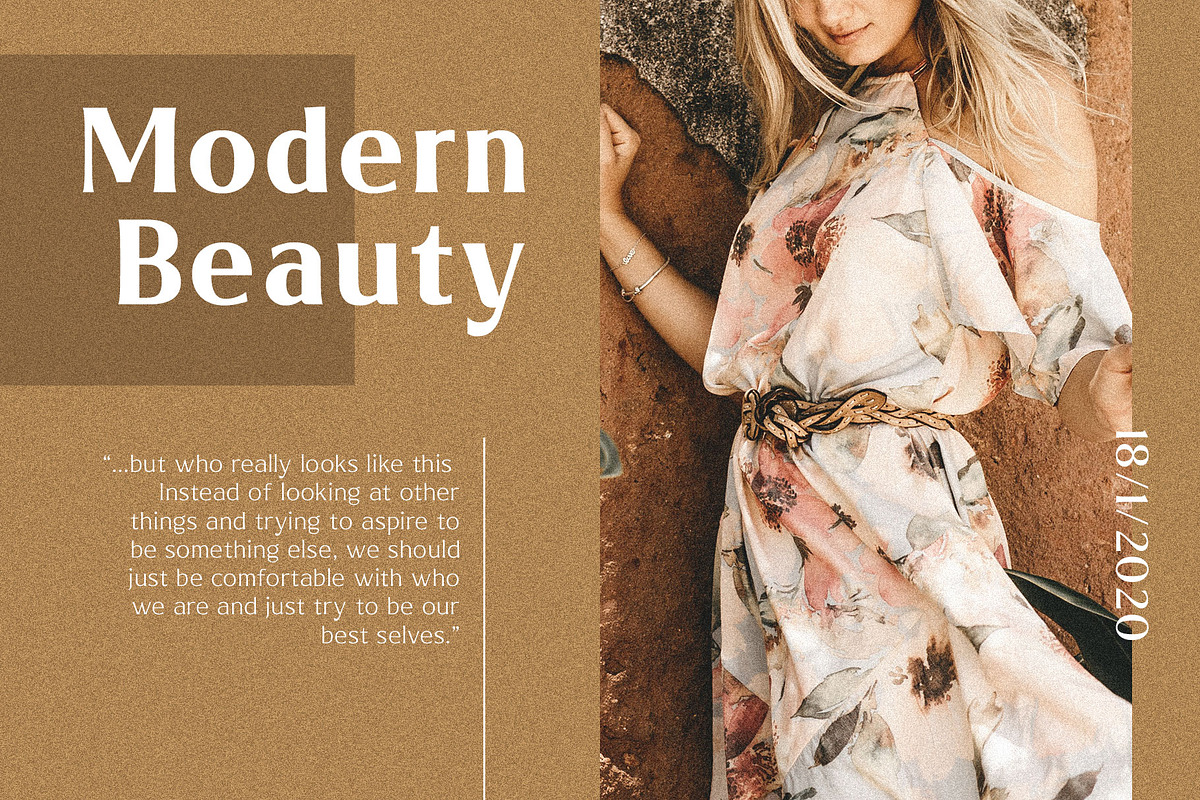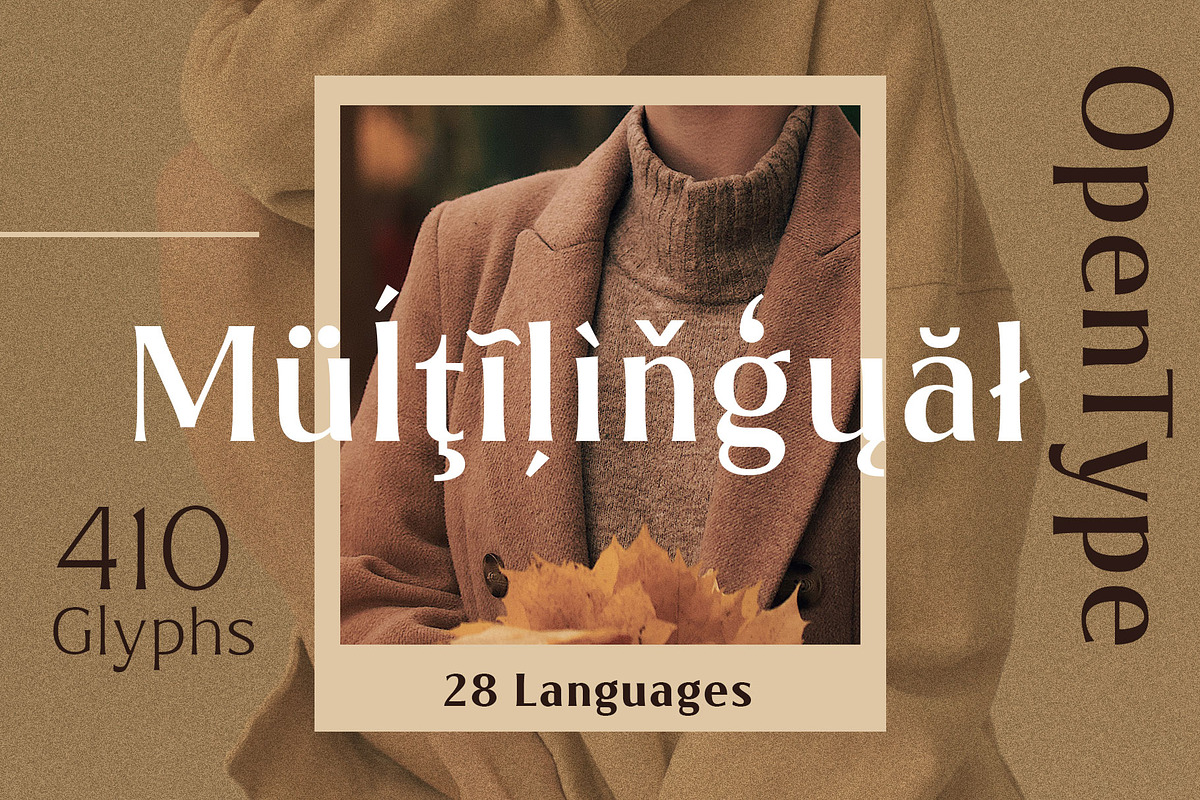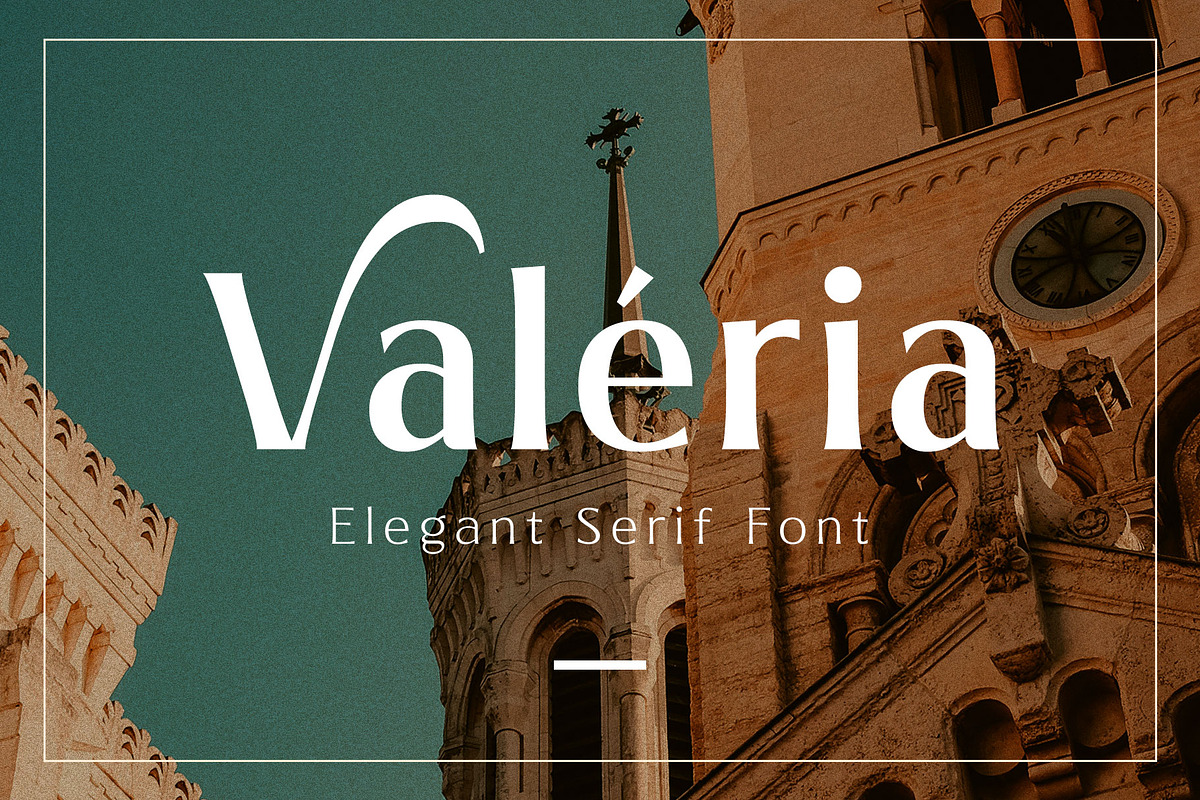
Valeria - Elegant Serif
Valeria is an elegant serif font, designed with modern-classy style. Valeria has a high contrast of the strokes that gives the minimalist looks, the serif crafted minimal to makes the letterform more classy. Also, the letterspacing is set wide that looks so clean. Versatile and luxury!
Available in 3 weights that you can use it for a headline, sub-headline, and body text. Valeria is a great choice for a minimalist design such as book cover, magazine, cards, packaging, quotes, editorial needs, advertising, traveling needs, logos & branding.
Valeria completed with alternates and swashes on the uppercase letter that possible you can make a typographic text.
- Punctuations
- Stylistic alternates
- Accents (28 Languages)